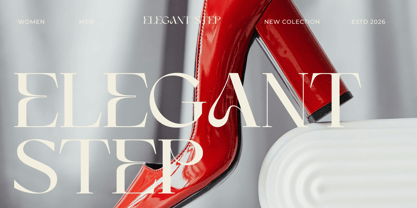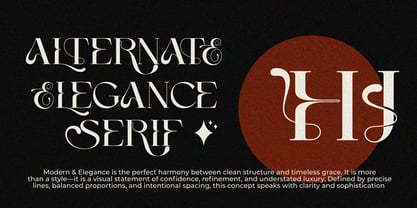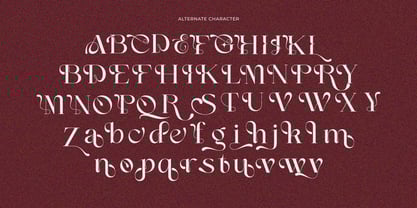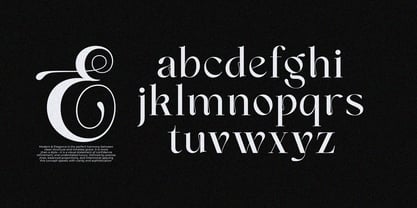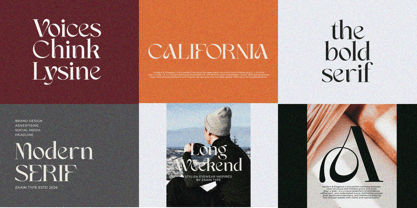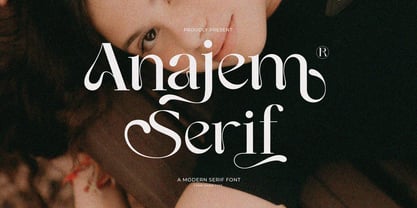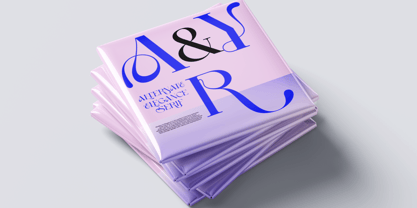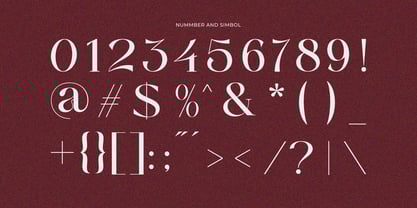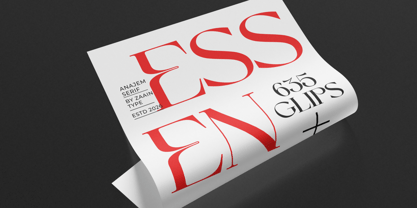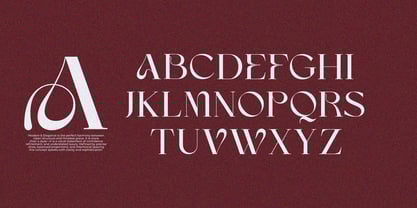
Anajem Serif
by Zaain Type
The Anajem Serif Font Family was designed by Ju Naen and published by Zaain Type. Anajem Serif contains 2 styles and family package options. More about this family
Anajem Serif is a serif typeface that blends classic elegance with a subtle modern touch. Designed with balanced proportions, gentle stroke contrast, and refined yet distinctive serifs, this font delivers a professional, warm, and highly readable appearance across various sizes. Its character stands out through clean letterforms and a smooth visual rhythm, making it ideal for editorial uses such as books, magazines, and branding projects that aim for a sophisticated and timeless look. The classic nuance conveys trust and credibility, while its modern refinement ensures relevance across both print and digital media